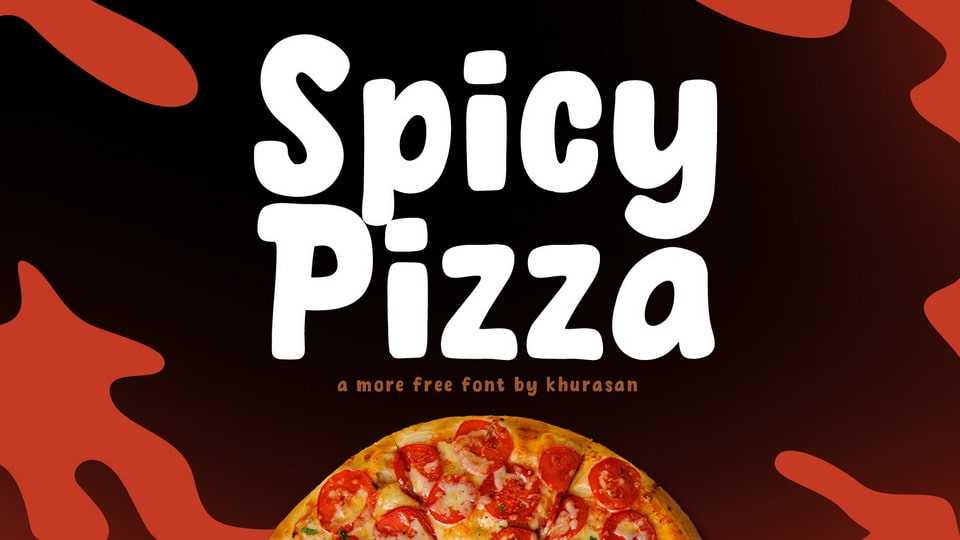
Download Spicy Pizza font, a simple hand-drawn typeface that radiates playful and funny vibes in every letter. Spicy Pizza font features an endearing and lighthearted design, with a sense of joyful spontaneity.